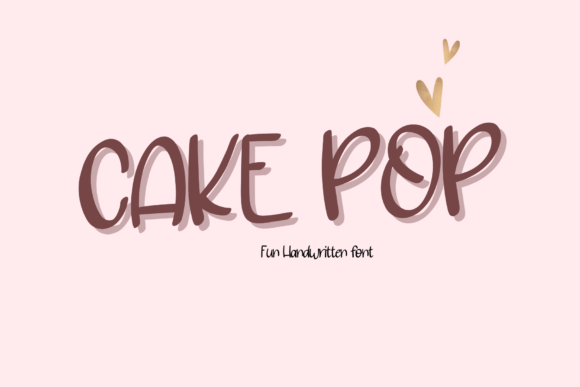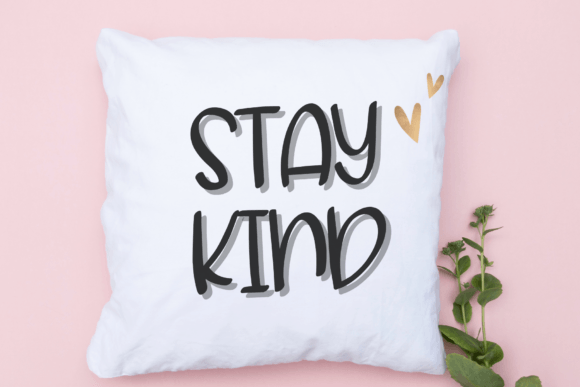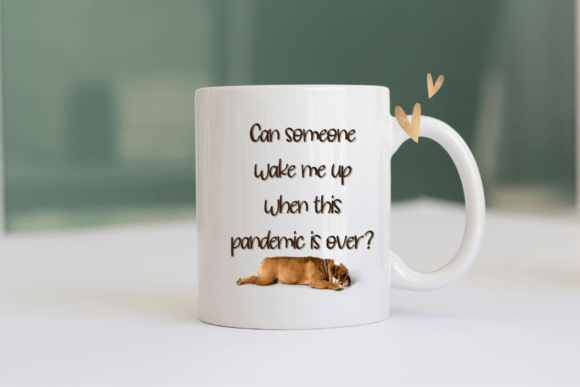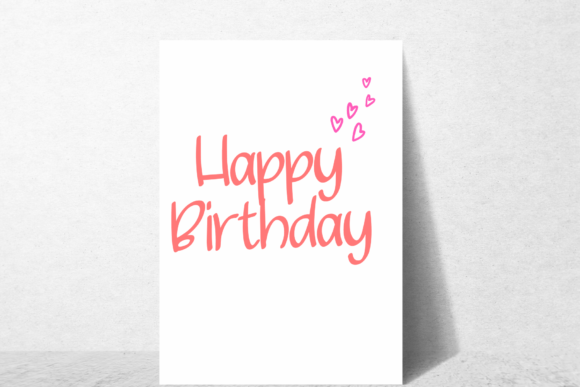
Cake Pop Font: A Cute Handwritten Font for Cricut & DIY Projects
About the Cake Pop Font
Step up your design game with Cake Pop Font, a font that exudes confidence and style. Cake Pop is a friendly handwritten font that will add elegance and class to any of your design projects, logos, wedding designs, social media posts, advertisements, product packaging, product designs, label, photography, watermark, invitation, stationery, and any other projects.
Cake Pop’s friendly, handwritten style excels in headlines, short text blocks on invitations or packaging, and social media graphics. Its elegance works well for branding projects requiring a touch of sophistication, particularly in the food, beauty, or fashion industries. However, its informal nature makes it less suitable for body text or lengthy paragraphs, and it might be too decorative for UI elements requiring high readability.
Pairing Cake Pop with a clean sans-serif like Montserrat for body text creates a balanced design. For a more playful feel, consider pairing it with a rounded geometric sans-serif such as Circular Std. A classic serif like Garamond can add contrast and sophistication when needed.
The font’s overall personality is best described as friendly and elegant, conveying warmth and approachability with a touch of refined style. This makes it ideal for brands seeking to communicate a welcoming and trustworthy image.
Cake Pop Font Usage Examples
Cake Pop Font Example